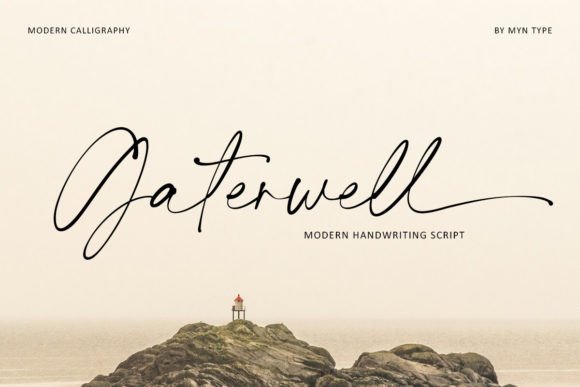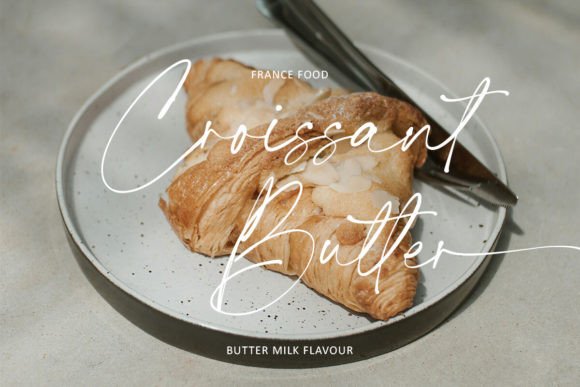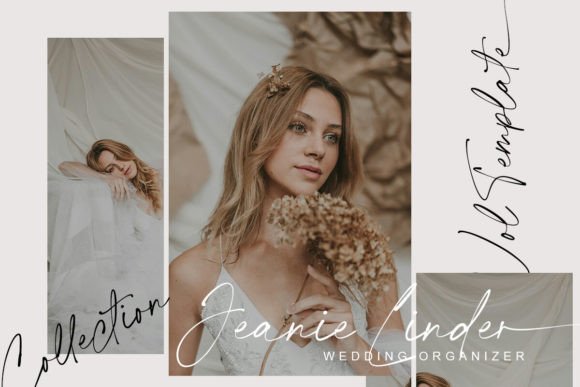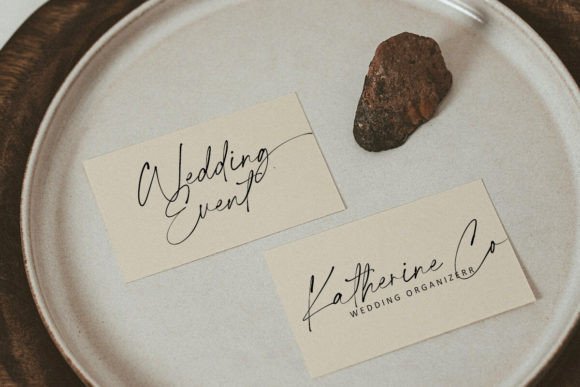
Gaterwell Font: Elegant Handwritten Script for Wedding & Logo Design
About the Gaterwell Font
Explore the possibilities with Gaterwell Font, a font that offers both beauty and functionality. Gaterwell is a delicate and elegant handwritten font. Its distinct and well balanced letters make this font a masterpiece. Fall in love with its incredibly versatile style and use it to create spectacular designs!
Gaterwell’s elegant, delicate nature makes it ideal for projects requiring a touch of refined femininity, such as wedding invitations, greeting cards, or branding for luxury goods. It excels in short text applications like headlines, logos, and short quotes where its graceful curves shine. However, its script style is less suitable for body text or UI elements; its low x-height and intricate details hinder readability in longer passages.
Pairing Gaterwell with a clean sans-serif like Lato or Open Sans provides a strong contrast, balancing its delicate script with modern clarity. For a more classic feel, consider pairing it with a serif typeface like Garamond or Playfair Display. These combinations offer visual harmony while maintaining distinct roles for each typeface.
Gaterwell projects an air of sophisticated charm and understated luxury. It’s best suited for brands and projects that value elegance, craftsmanship, and a touch of romanticism.
Gaterwell Font Usage Examples
Gaterwell Font Example